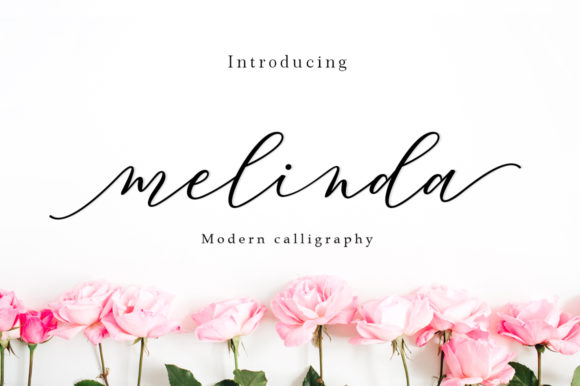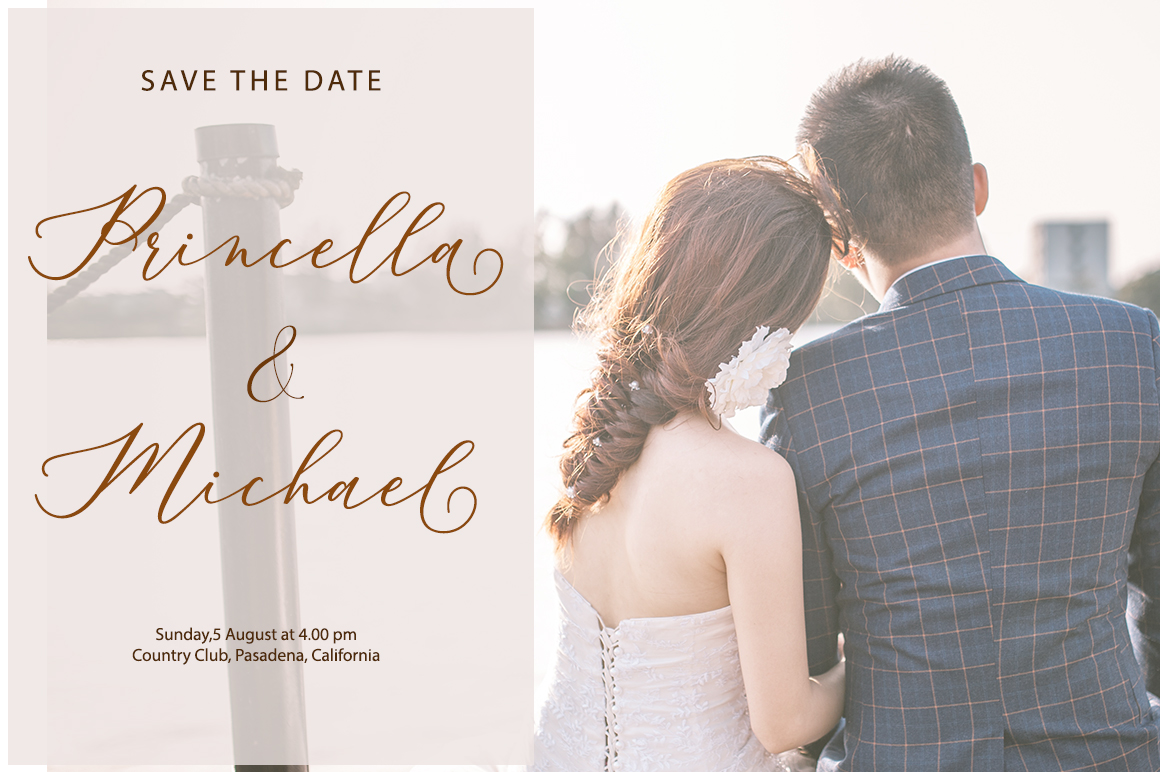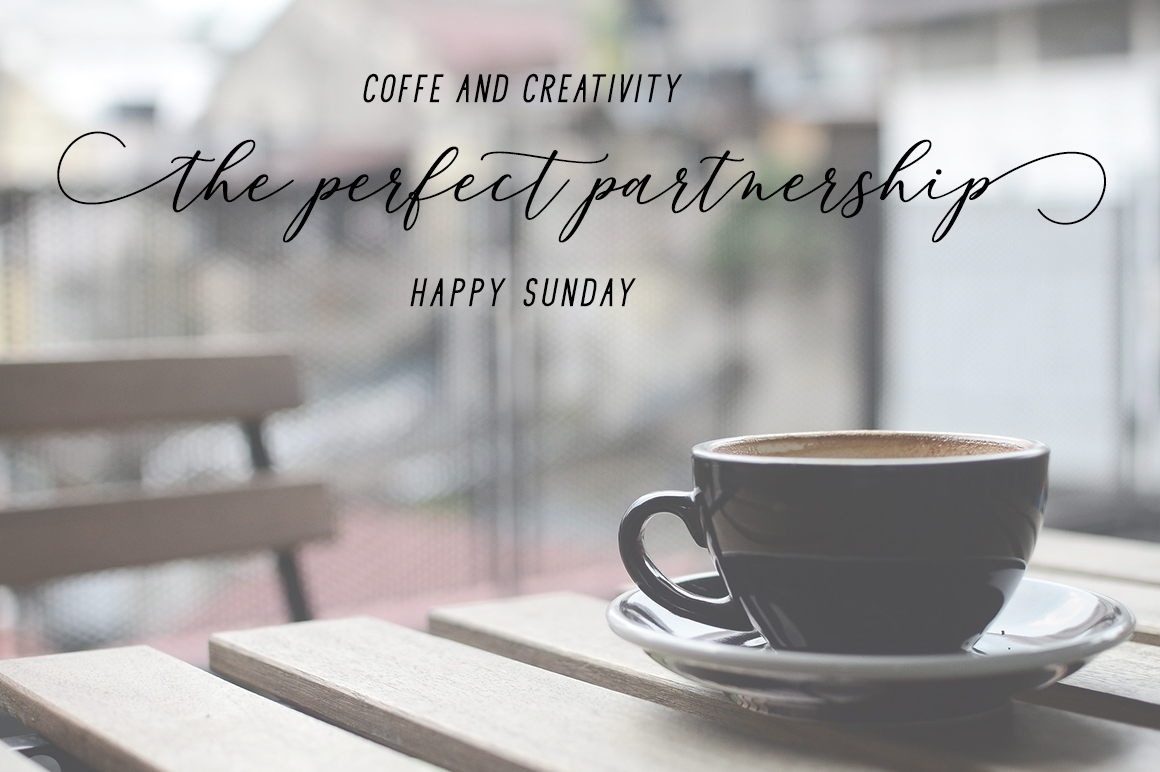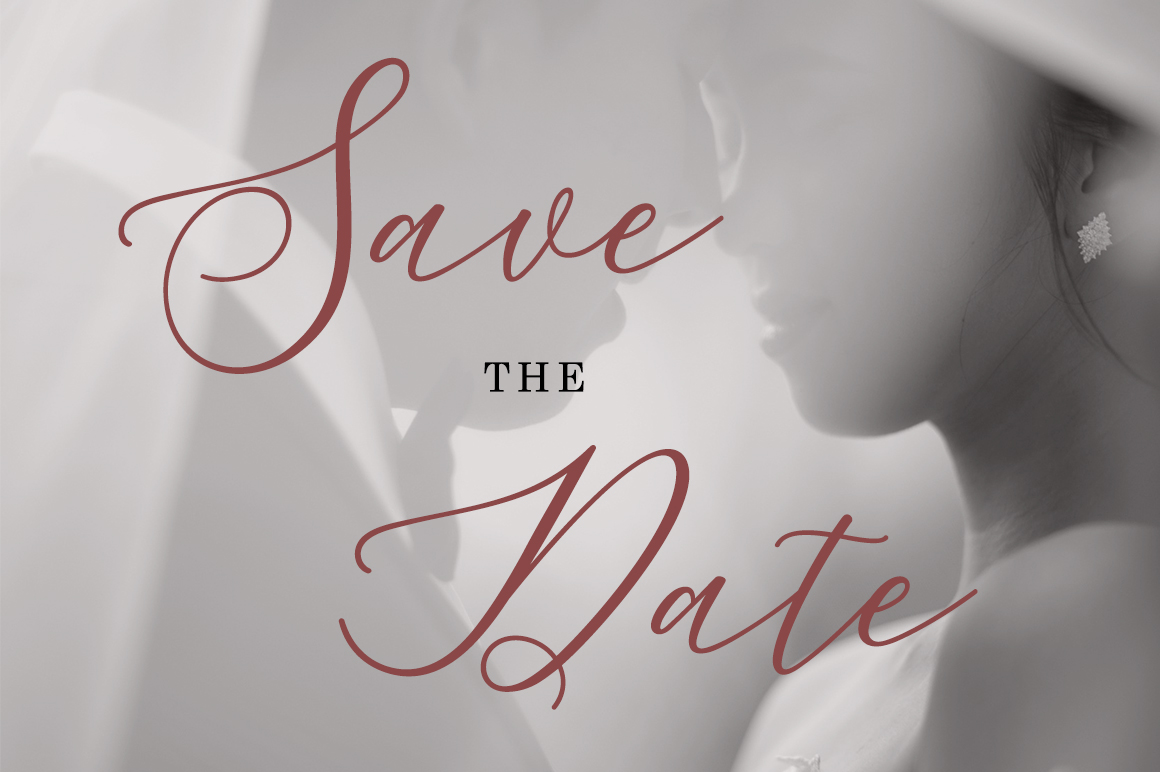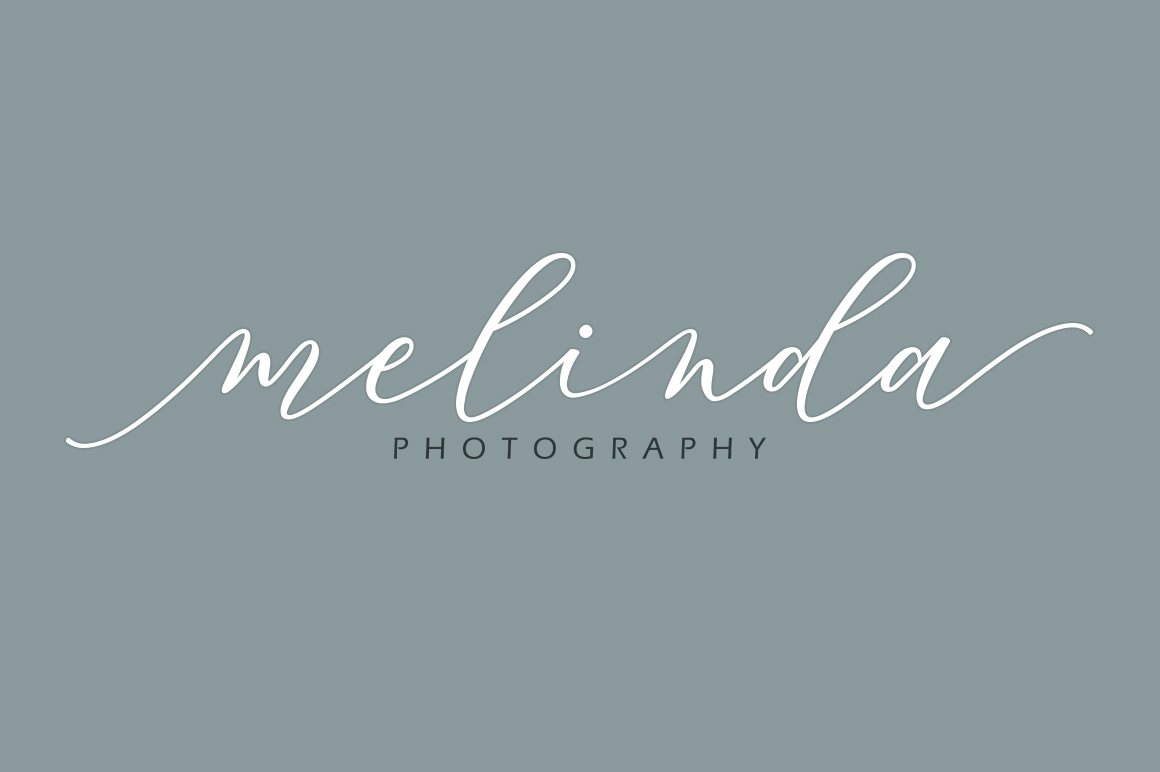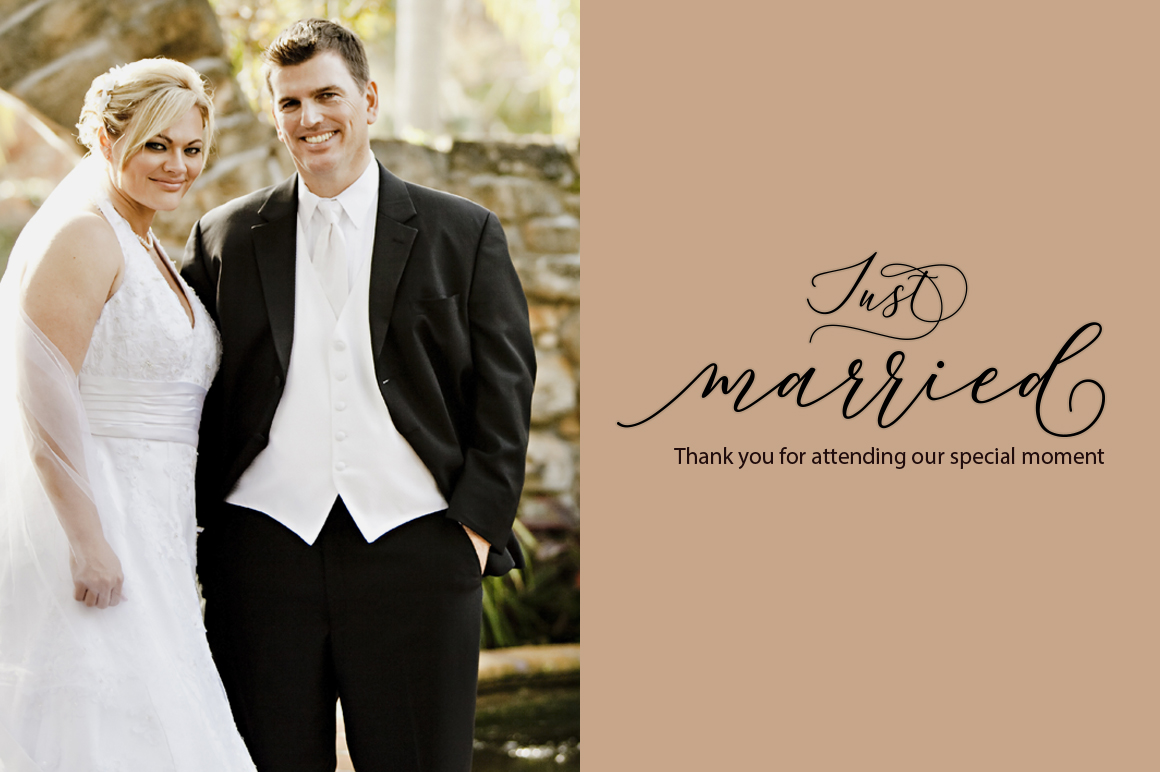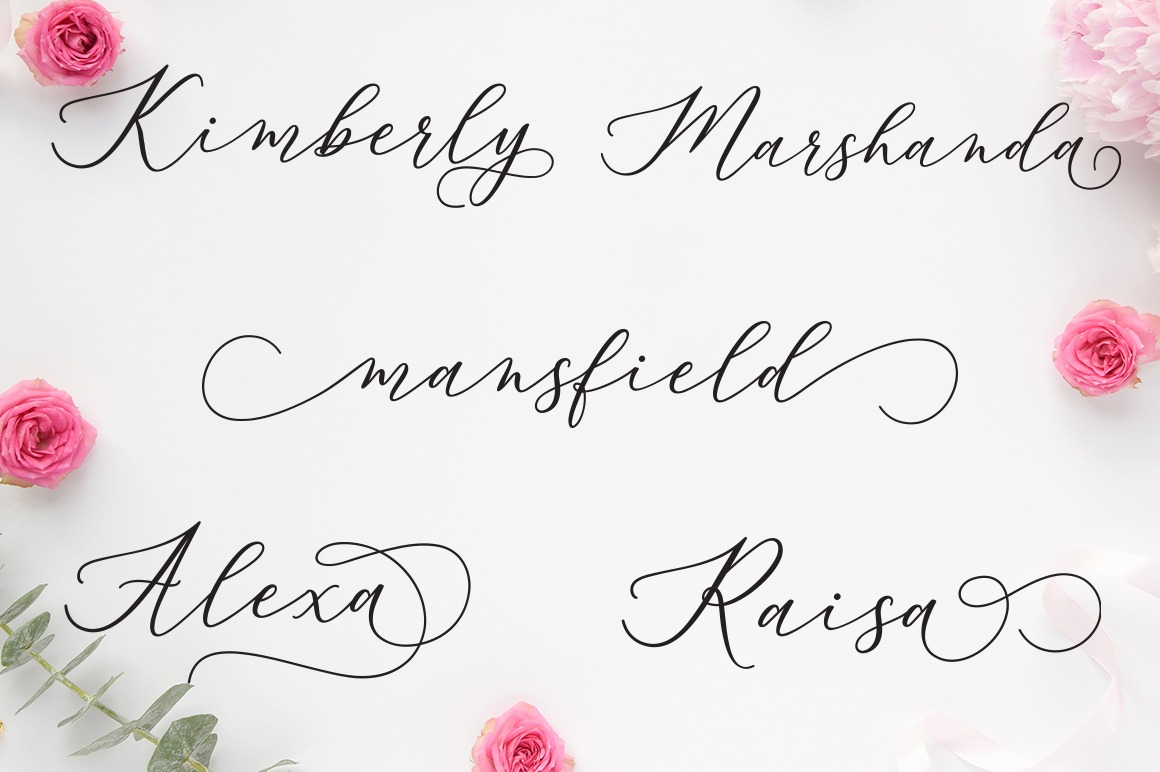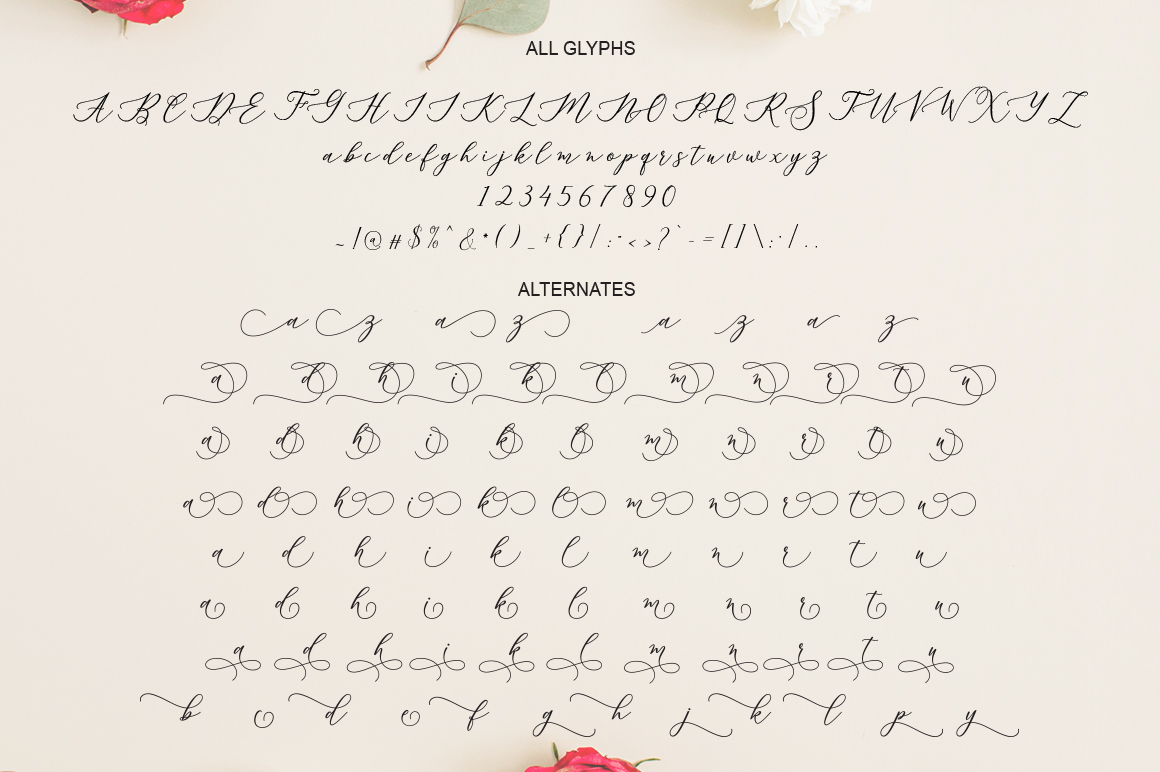
Mansfield Script Font
About Mansfield Script Font
The Mansfield Script is a authentic, fresh script.
This font has a calligraphy style, features stunning decorative letters and has a dancing baseline.